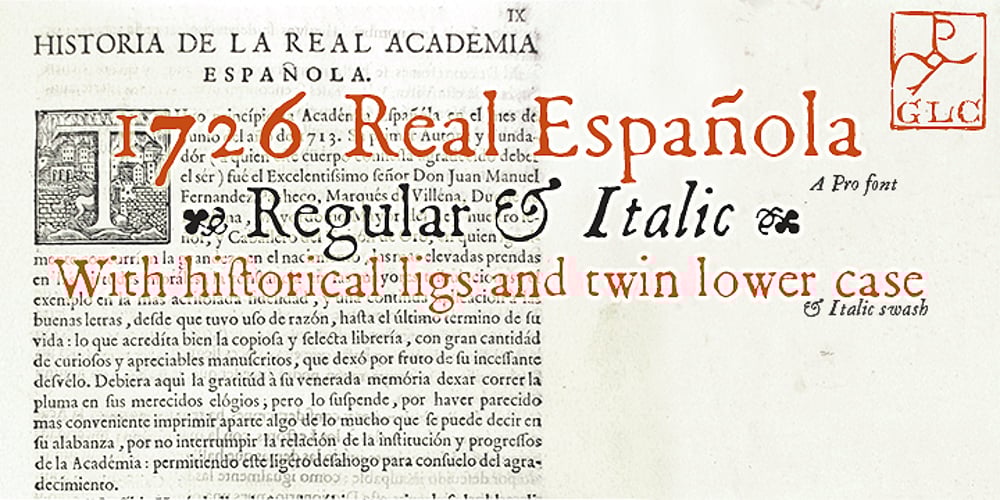
1726 Real Española Font Family was designed by published by GLC. 1726 Real Española contains 2 styles and family package options. This family was inspired from the set of fontfaces used by Francisco Del Hierro, to print in 1726 the first Spanish language Dictionary from the Spanish Royal Academy (Real Academia Española, Diccionario de Autoridades). These two Transitional styles are said to have been the first set of official typeface in Spain, like the French “Reale” (take a look at our “[/fonts/glc/1790-royal-printing/ 1790 Royale Printing)”. In our two styles (Regular & Italic), fontfaces, kernings and spaces are as closely as possible the same as in the original. This Pro font is covering Western, Eastern and Central European, Baltic and Turkish languages, with standard and “s long” ligatures and twin letters in each of the two styles and a few Italic swashes inspired from the font used in 1746 by the same printer for another edition from the Royal Academy.